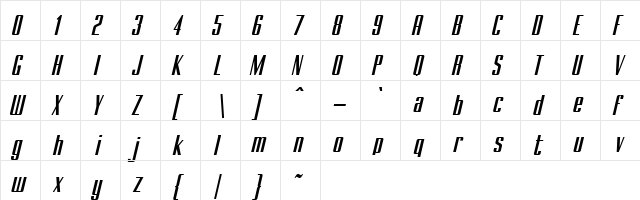
BRANCHE Italic Font Preview
BRANCHE Italic
BRANCHE Italic Font Details
Design Context for BRANCHE Typeface
BRANCHE offers clean, dependable letterforms without strong stylistic allegiance, making it a practical choice for designers who need flexibility. Its italic angle brings a sense of urgency and motion to the letterforms.
Pro Tip: Try BRANCHE for annotation and caption copy alongside an upright companion — the contrast in angle creates a dynamic but ordered typographic system.